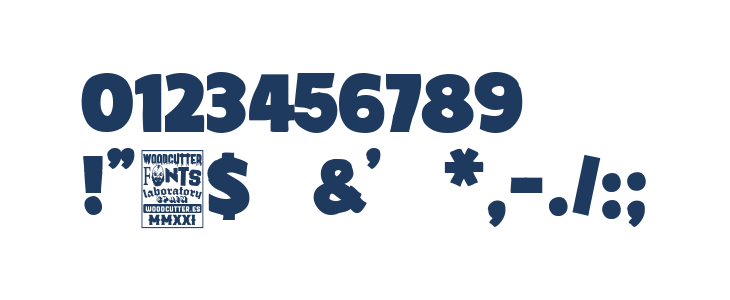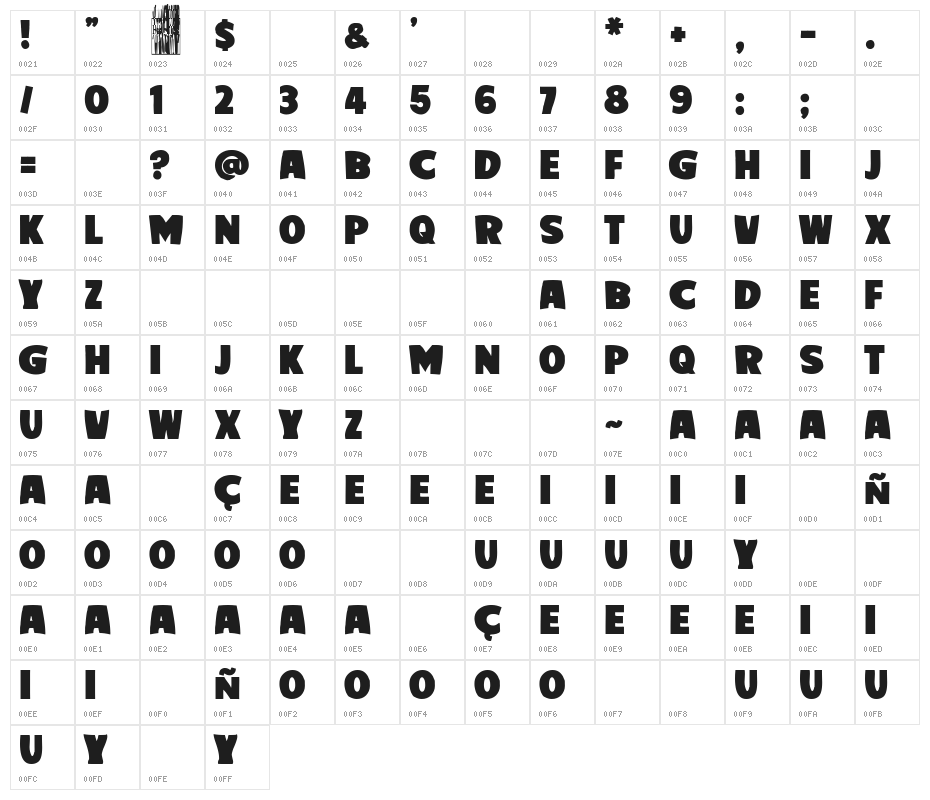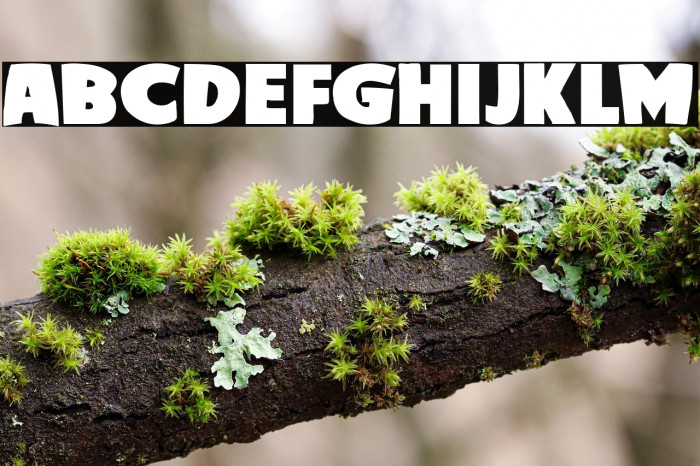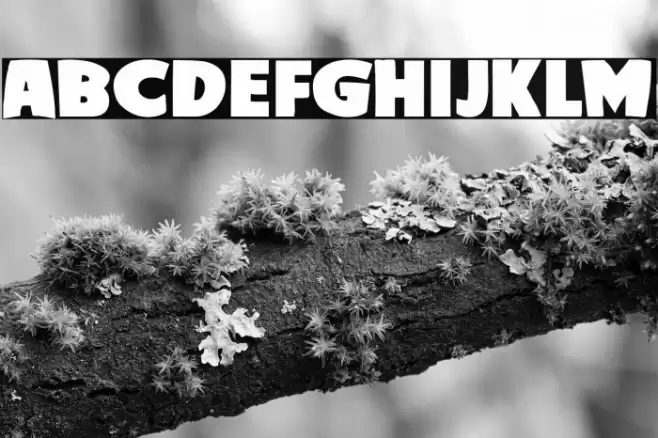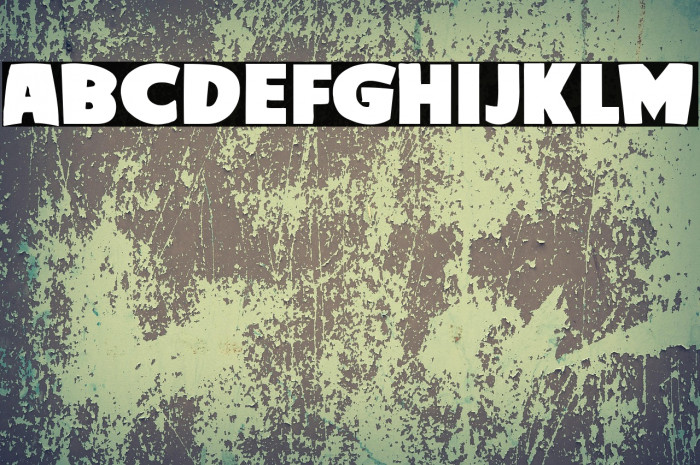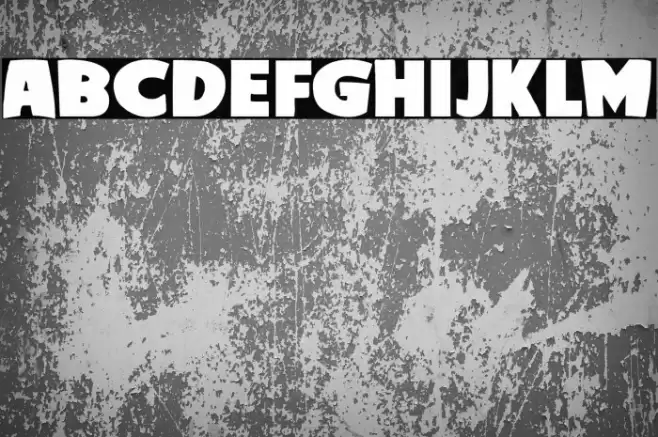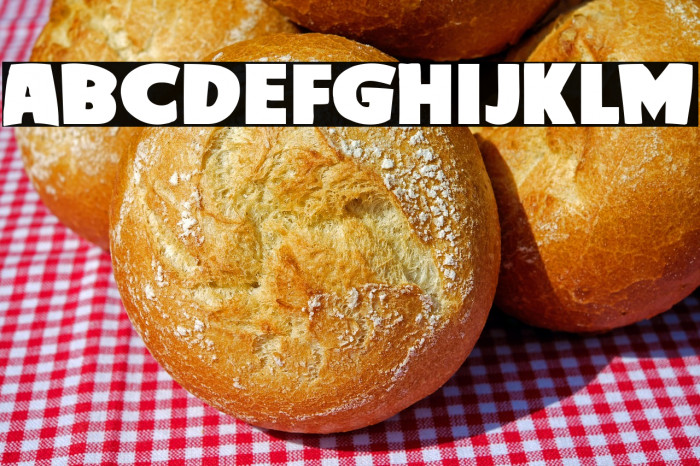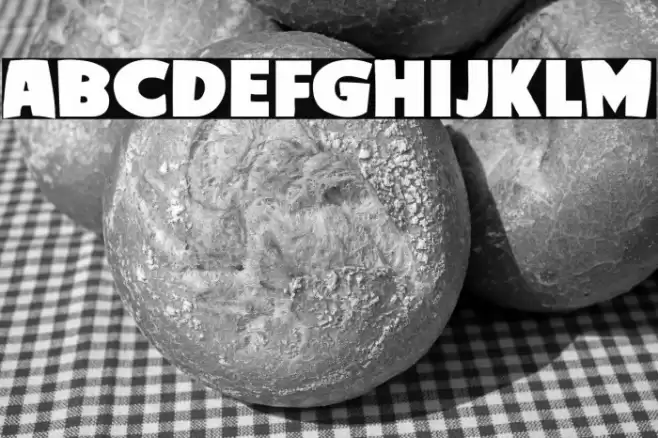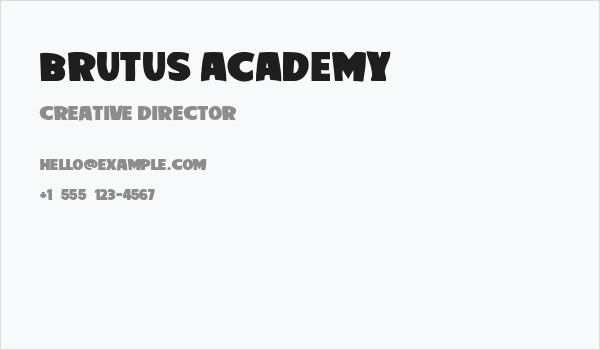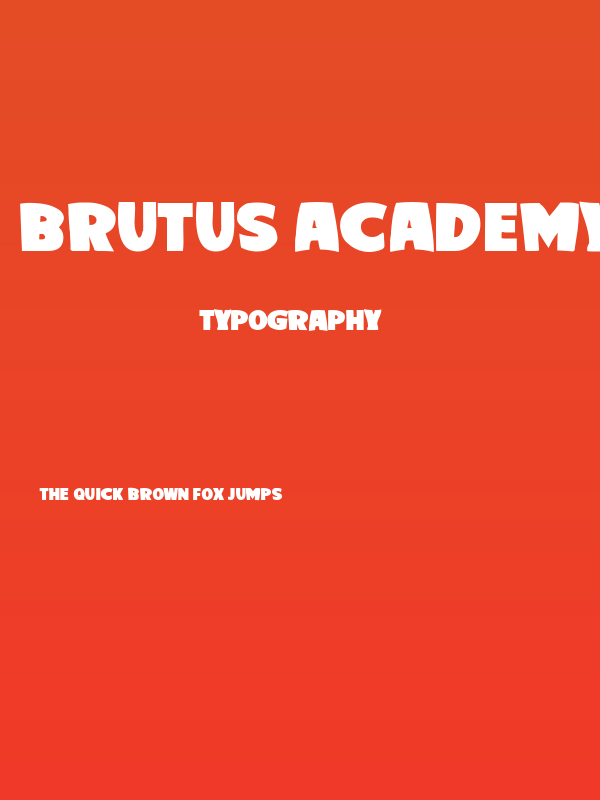
Brutus Academy Font
Brutus Academy Description
This font features bold, heavy strokes with a playful and robust appearance. The characters are wide and have a slight curvature, giving them a friendly and approachable look. The uppercase letters are particularly striking, with a strong presence that demands attention. The numbers and special characters maintain the same bold style, ensuring consistency across all text elements. This font is ideal for projects that require a strong visual impact and a touch of whimsy.
| Overall Style | Playful, Bold |
| Proposed Projects | Ideal for children's books, playful branding, posters, and any project needing a bold, fun typeface. |